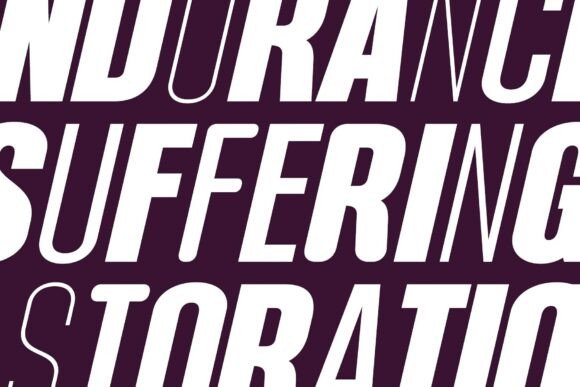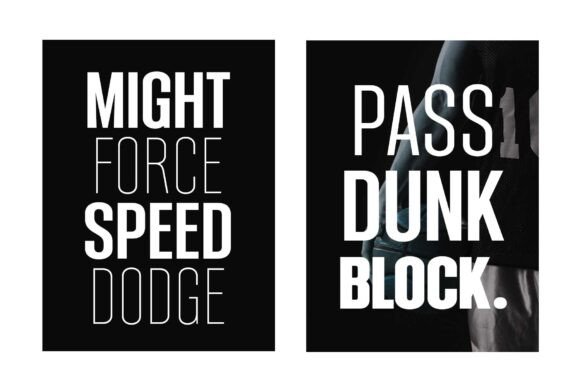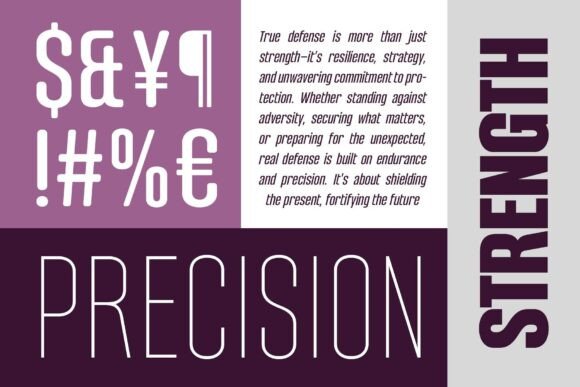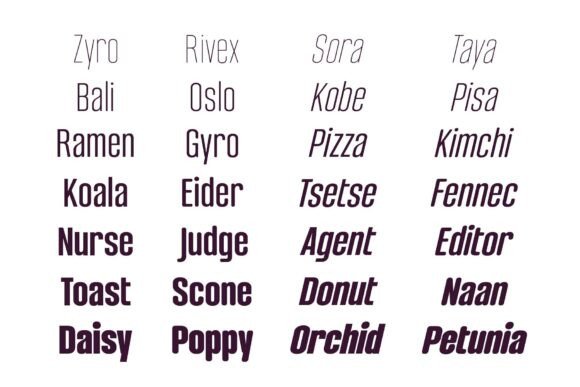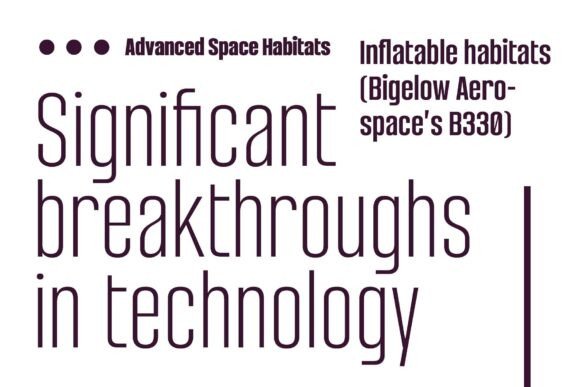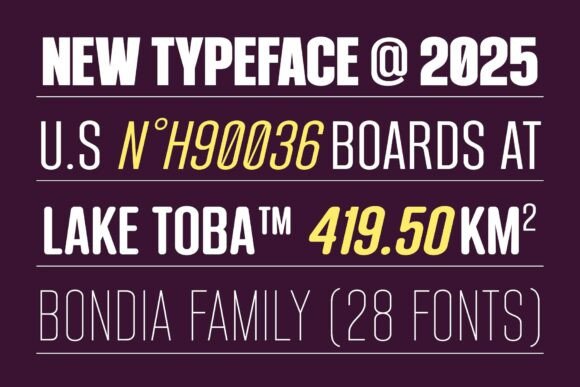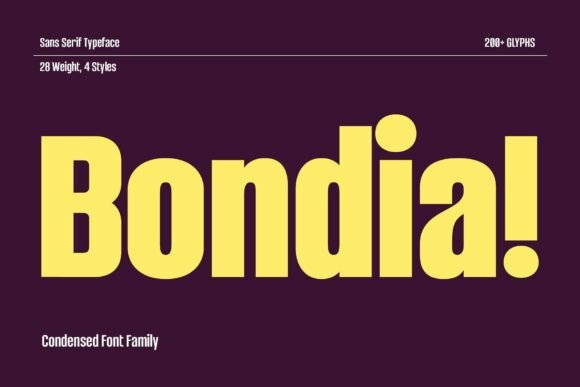
Bondia Font: Elevate Your Design with Elegance and Strength
In the world of typography, finding the perfect font that balances elegance, strength, and modern appeal can be a daunting task. However, look no further than Bondia, a versatile condensed sans serif font that is sure to revolutionize your design projects. With its sleek, narrow structure and range of 7 weights and 4 styles, Bondia offers the perfect blend of style and functionality.
A Font Designed for Impact and Readability
Bondia is specifically designed to deliver a sporty and futuristic look, making it an ideal choice for bold and stylish visuals. Its condensed structure allows for a more streamlined and modern aesthetic, perfect for designers and crafters looking to add a sharp, contemporary edge to their projects. Whether you’re working on branding, posters, editorial layouts, product packaging, or digital content, Bondia is the perfect font to make your design stand out.
Flexibility for Various Design Needs
One of the standout features of Bondia is its flexibility. With 7 weights and 4 styles, you can choose the perfect variation to suit your design needs. The lighter to semibold weights are ideal for clean, readable body text and subtext, while the bolder weights bring a powerful presence to headlines and statement pieces. This range of options allows you to use Bondia for a wide range of projects, from elegant editorial layouts to bold and eye-catching posters.
Elegance, Strength, and Modern Appeal
Bondia’s sleek, narrow structure gives it a unique and modern aesthetic that is sure to elevate your design projects. Its elegance and strength make it perfect for use in branding, where a strong and recognizable visual identity is crucial. The font’s modern appeal also makes it ideal for use in digital content, such as website headers, social media graphics, and mobile app designs.
Bondia is a font that is designed with designers and crafters in mind. Its versatility and range of options make it perfect for use in a wide range of projects, from print to digital. The font’s sleek and modern aesthetic also makes it ideal for use in branding and advertising, where a strong visual identity is crucial.
Key Features of Bondia Font
- 7 weights and 4 styles for flexibility and versatility
- Sleek, narrow structure for a sporty and futuristic look
- Elegant, strong, and modern appeal
- Perfect for use in branding, posters, editorial layouts, product packaging, and digital content
- Clean and readable body text and subtext in lighter to semibold weights
- Powerful presence in bolder weights for headlines and statement pieces
- Use the lighter weights for body text and subtext to create clean and readable text
- Use the bolder weights for headlines and statement pieces to create a powerful presence
- Experiment with different weights and styles to find the perfect combination for your design project
- Use Bondia font in combination with other fonts to create a unique and visually appealing design
In conclusion, Bondia font is a versatile and modern condensed sans serif font that is perfect for designers and crafters looking to add a sharp, contemporary edge to their design projects. With its sleek, narrow structure and range of 7 weights and 4 styles, Bondia offers the perfect blend of style and functionality. Whether you’re working on branding, posters, editorial layouts, product packaging, or digital content, Bondia is the perfect font to make your design stand out.